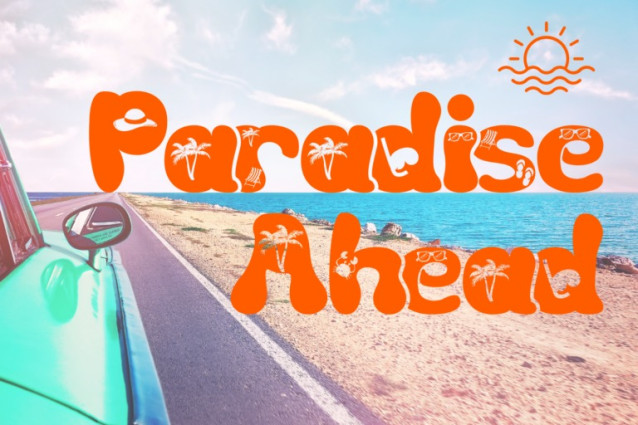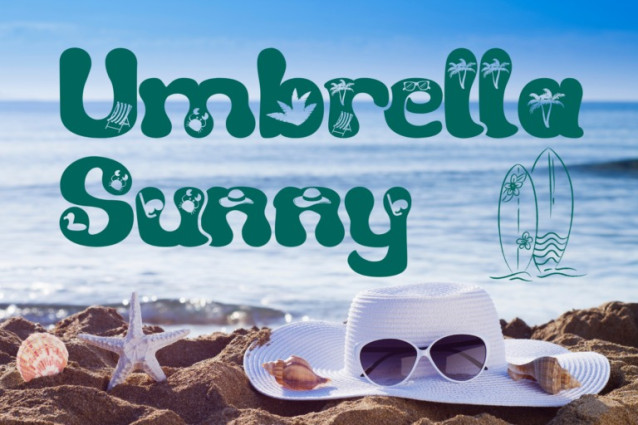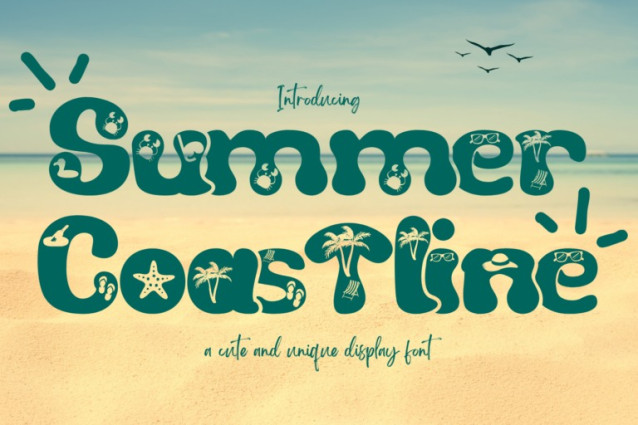
Summer Coastline Font
Summer Coastline – Summer Fun Font – A Summer Fun Decorative Display Font, a bold and sunny summer-themed display font that captures the carefree spirit of the beach. With each character packed full of charming illustrations—like flip-flops, crabs, palm trees, sunglasses, and floaties—this font is made to bring vacation vibes to life.
Whether you’re designing for summer events, beach party invitations, tropical packaging, travel ads, or children’s products, Summer Coastline adds a burst of warmth and personality to every letter.
Full Uppercase and Lowercase Letters
~100 Summer-Themed Special Ligatures
Accented Characters for multilingual use
About 100 ligatures combined with Stylistic Alternates Font: